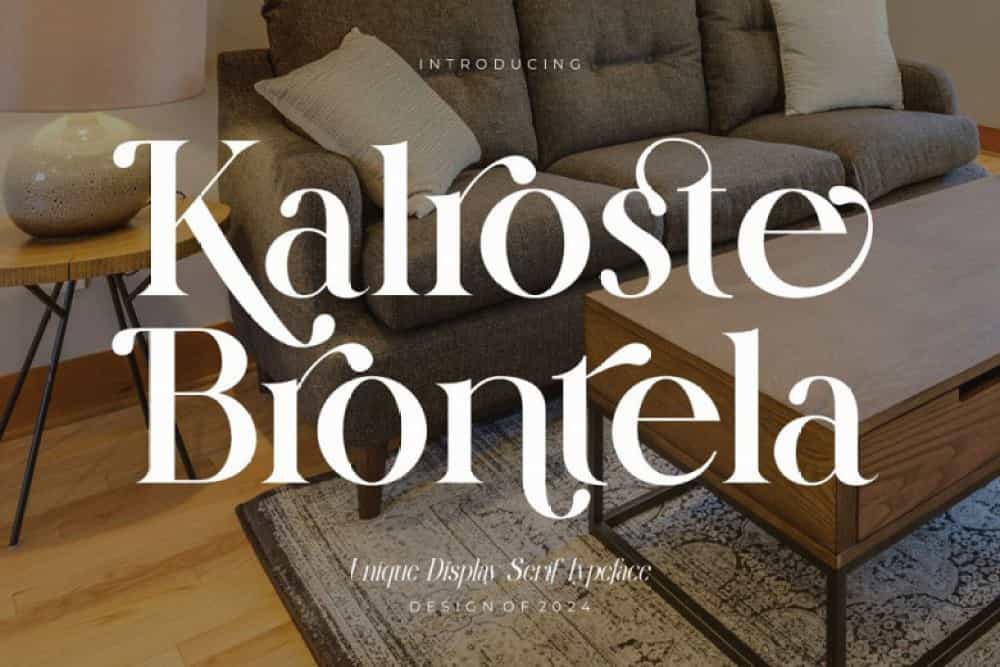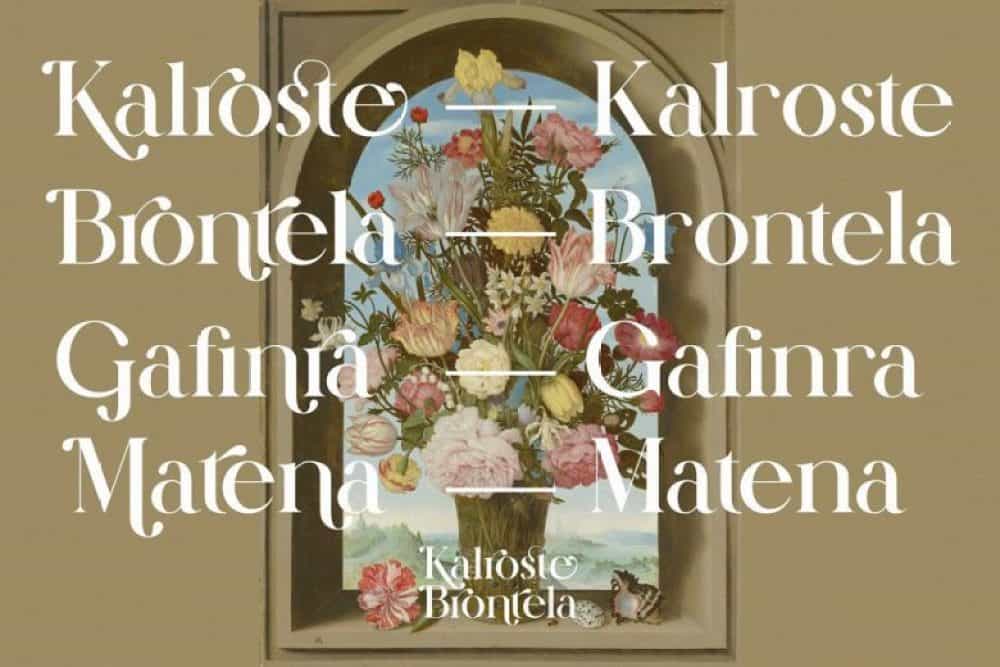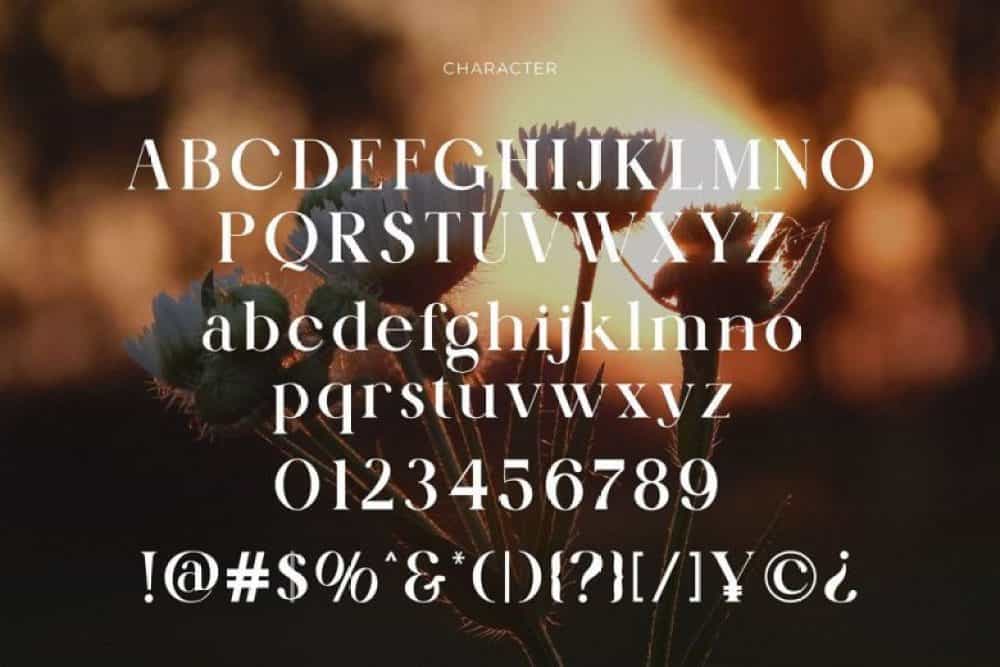
Kalroste Brontela Font
Kalroste Brontela is a beautiful display serif font that is based on the minimalistic logo and it is suitable for use in designing of templates, brochures, videos, advertising branding, logos, invitations, layout design, elegant crafting, beauty design, and much more.